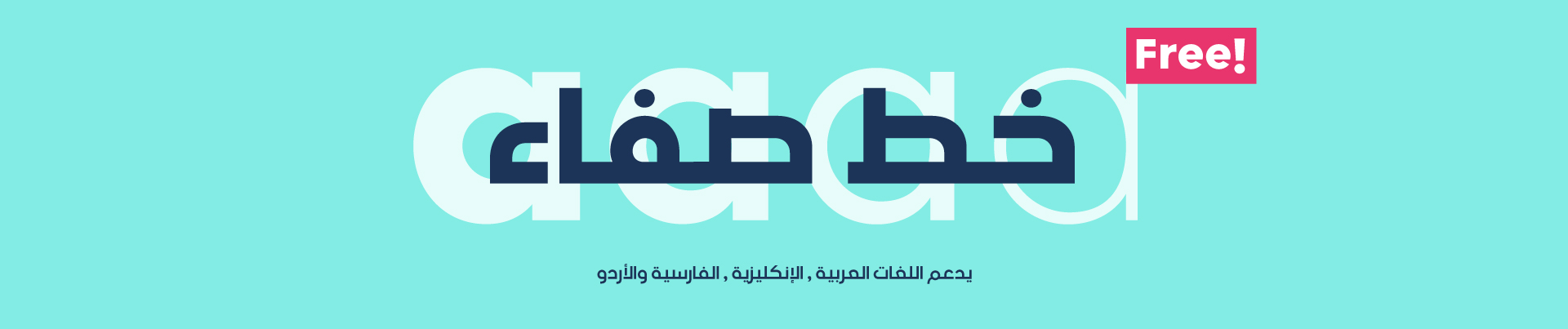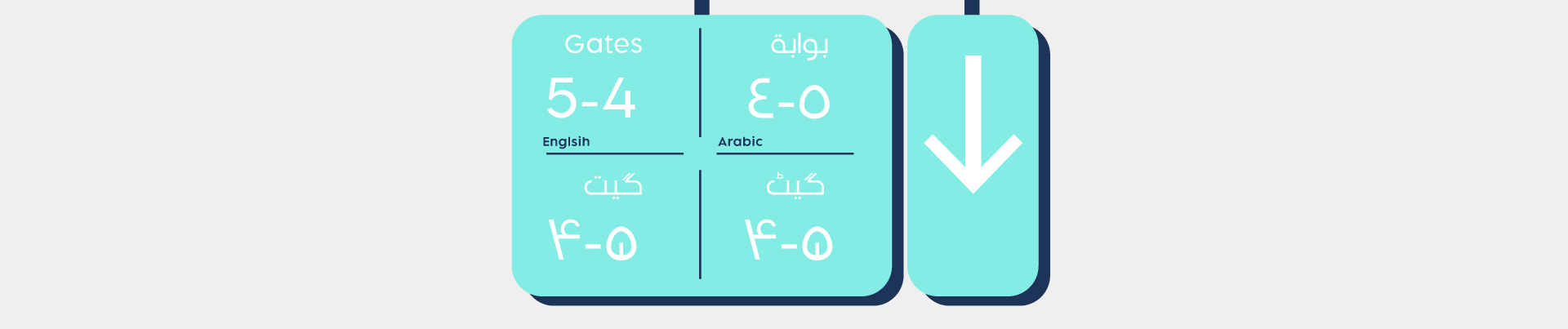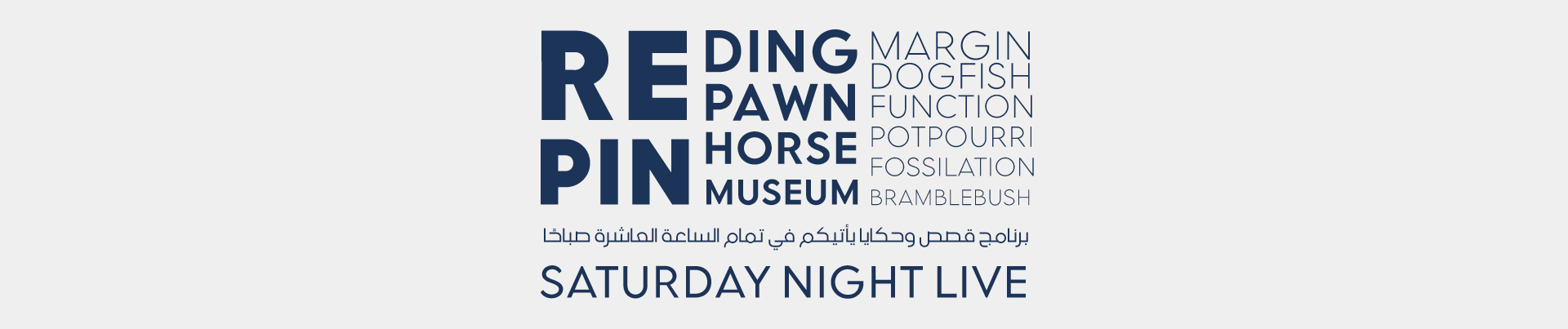
About Safaa Font
Introduction:
Safaa is a modern Kufic Arabic font, which was developed in 2021. It is FREE FOR PERSONAL USE
Weights and Supported Languages:
Safaa Font consists of 4 weights
It supports Arabic, English, Persian, and Urdu languages.
Usage:
Safaa is used in headlines, short texts, social media posts, and visual identities.
Designing & Developing:
TSfonts Type Foundry
Tarek Alsawwa